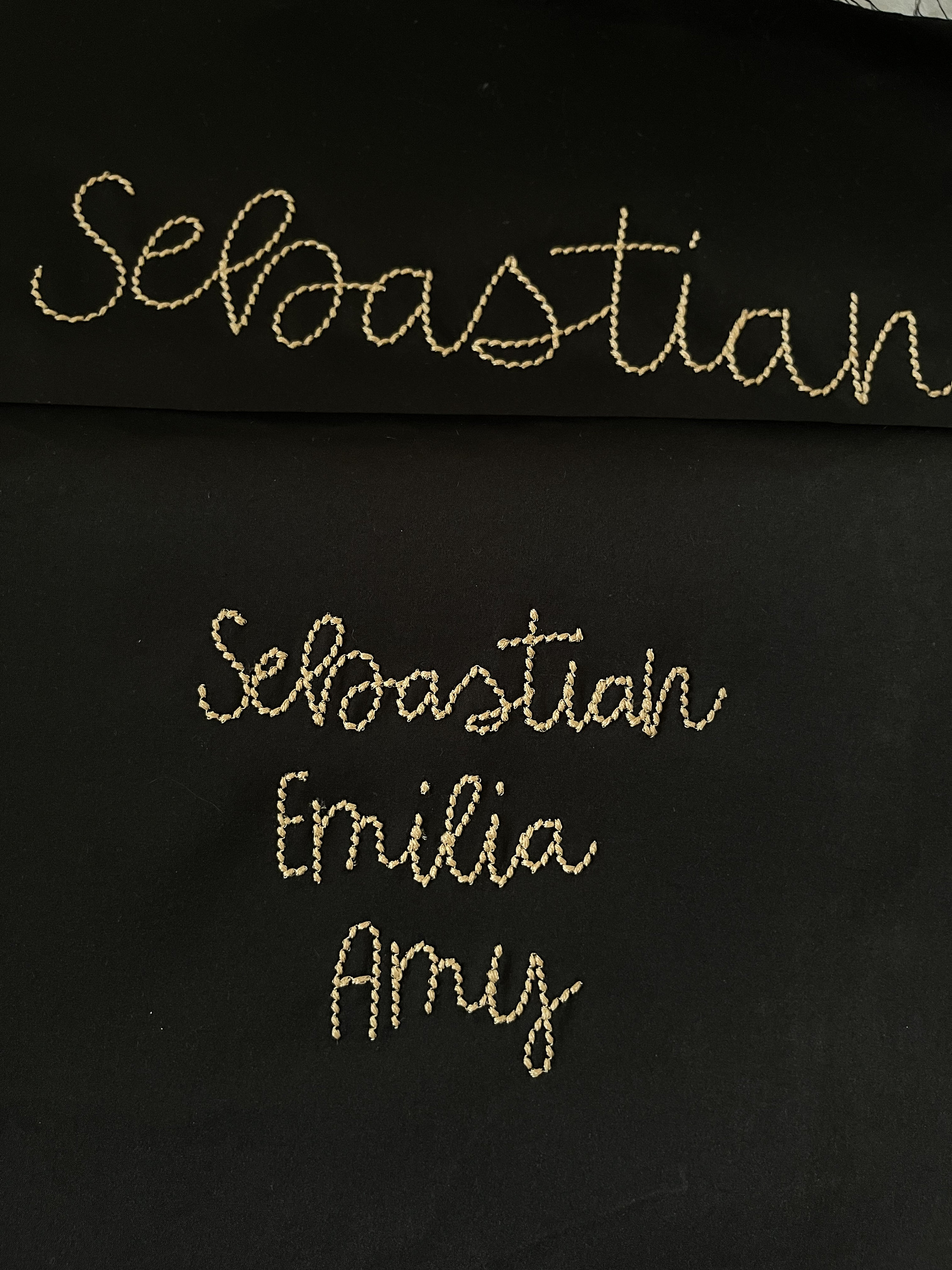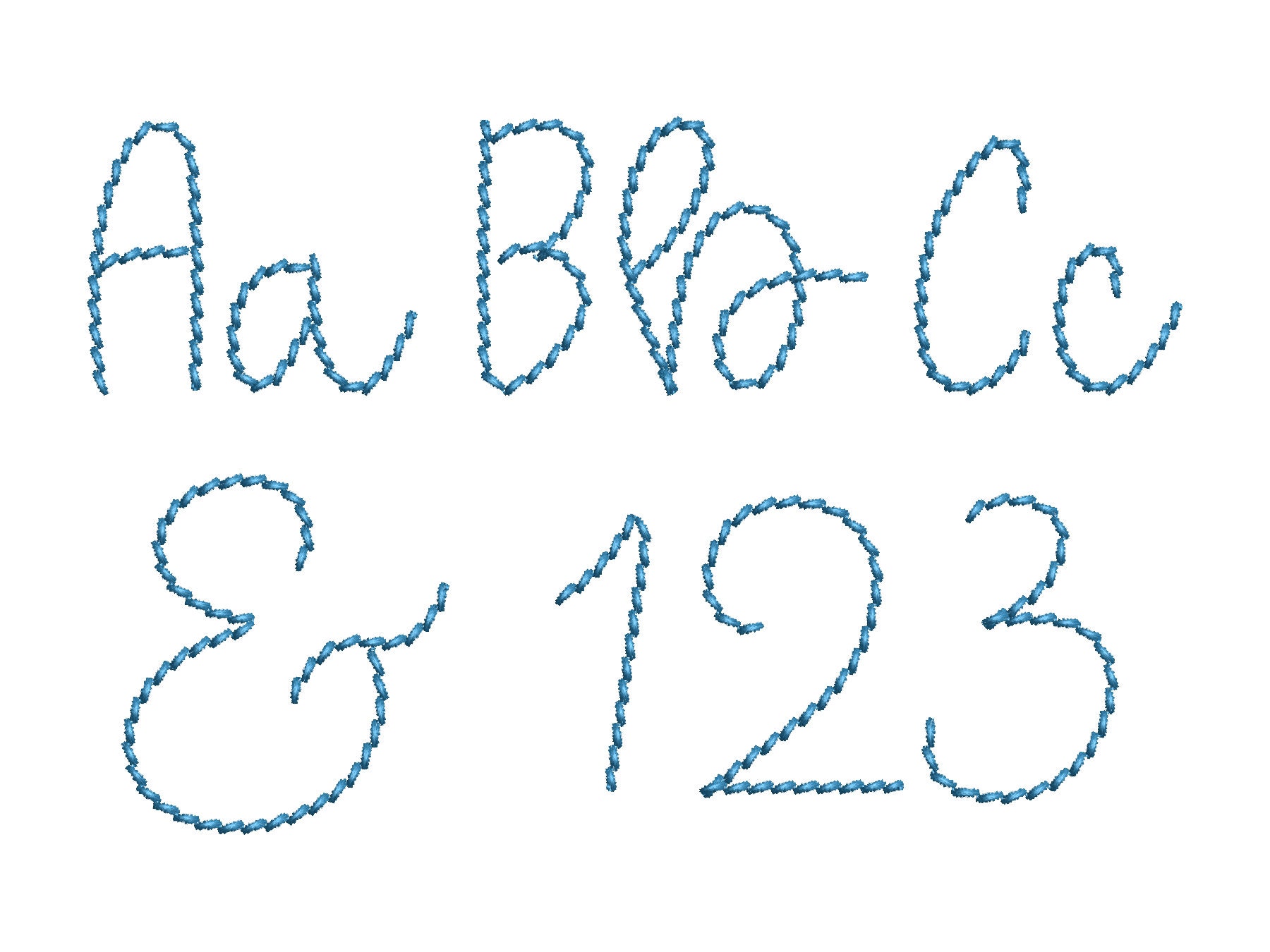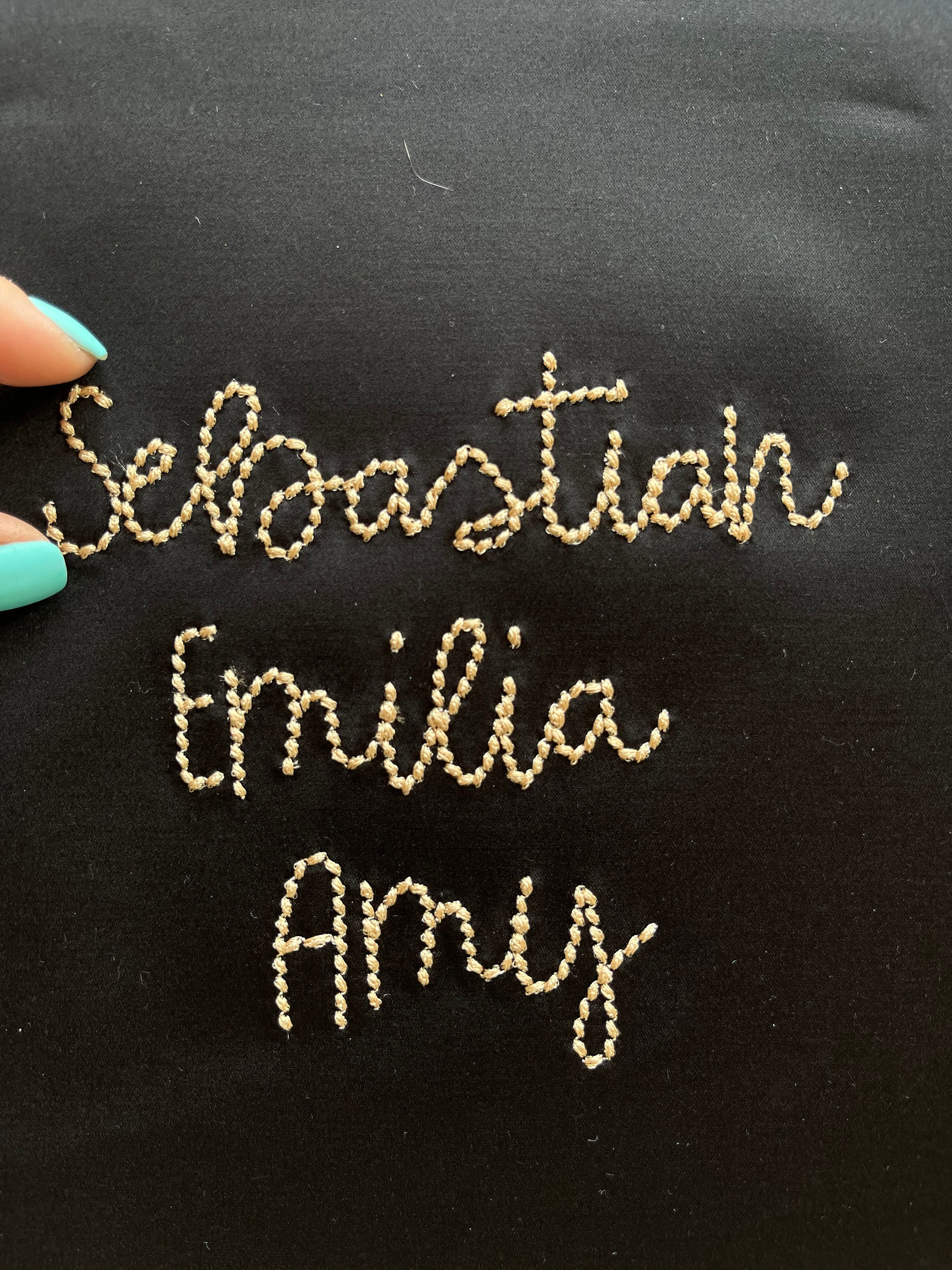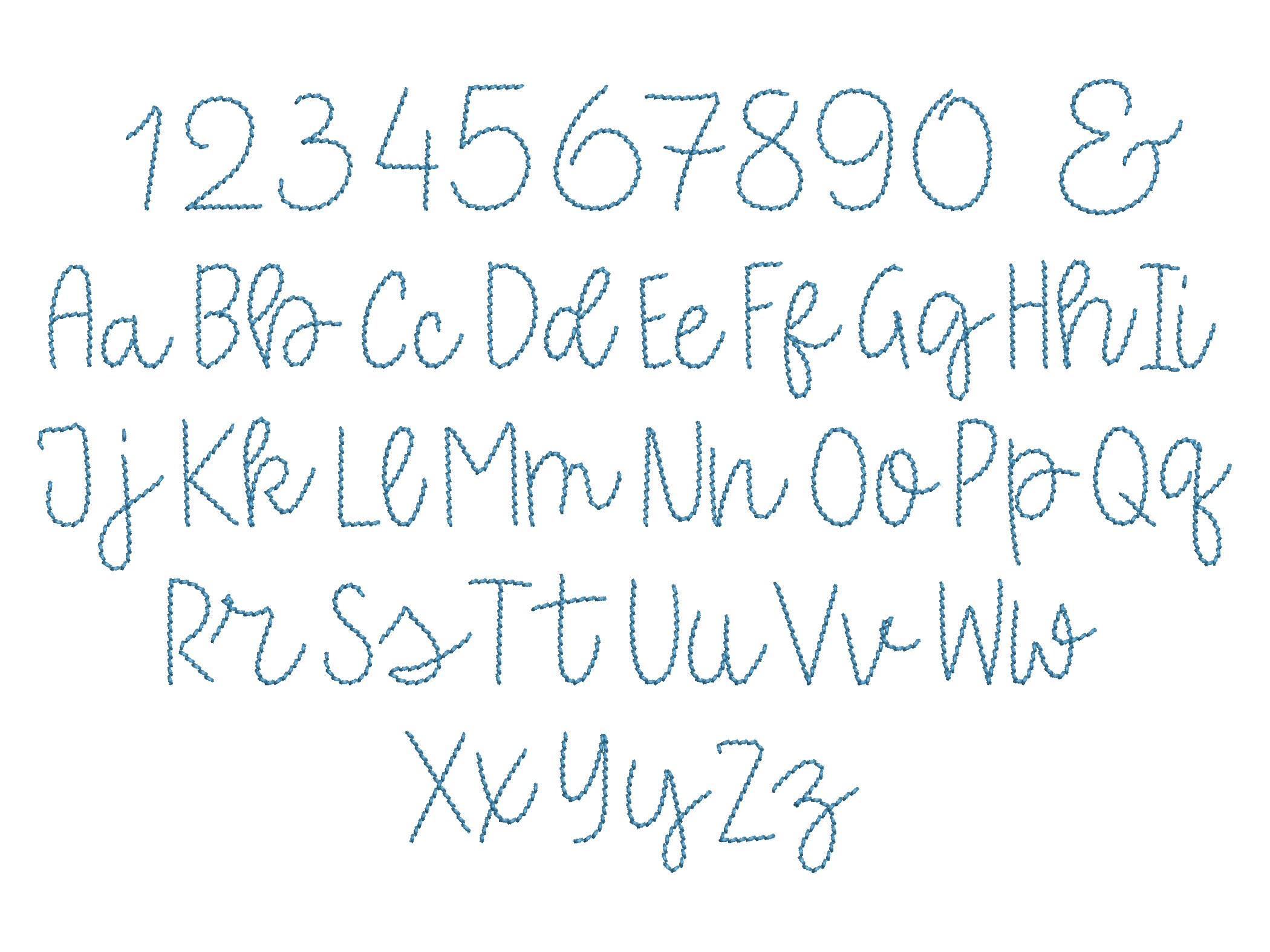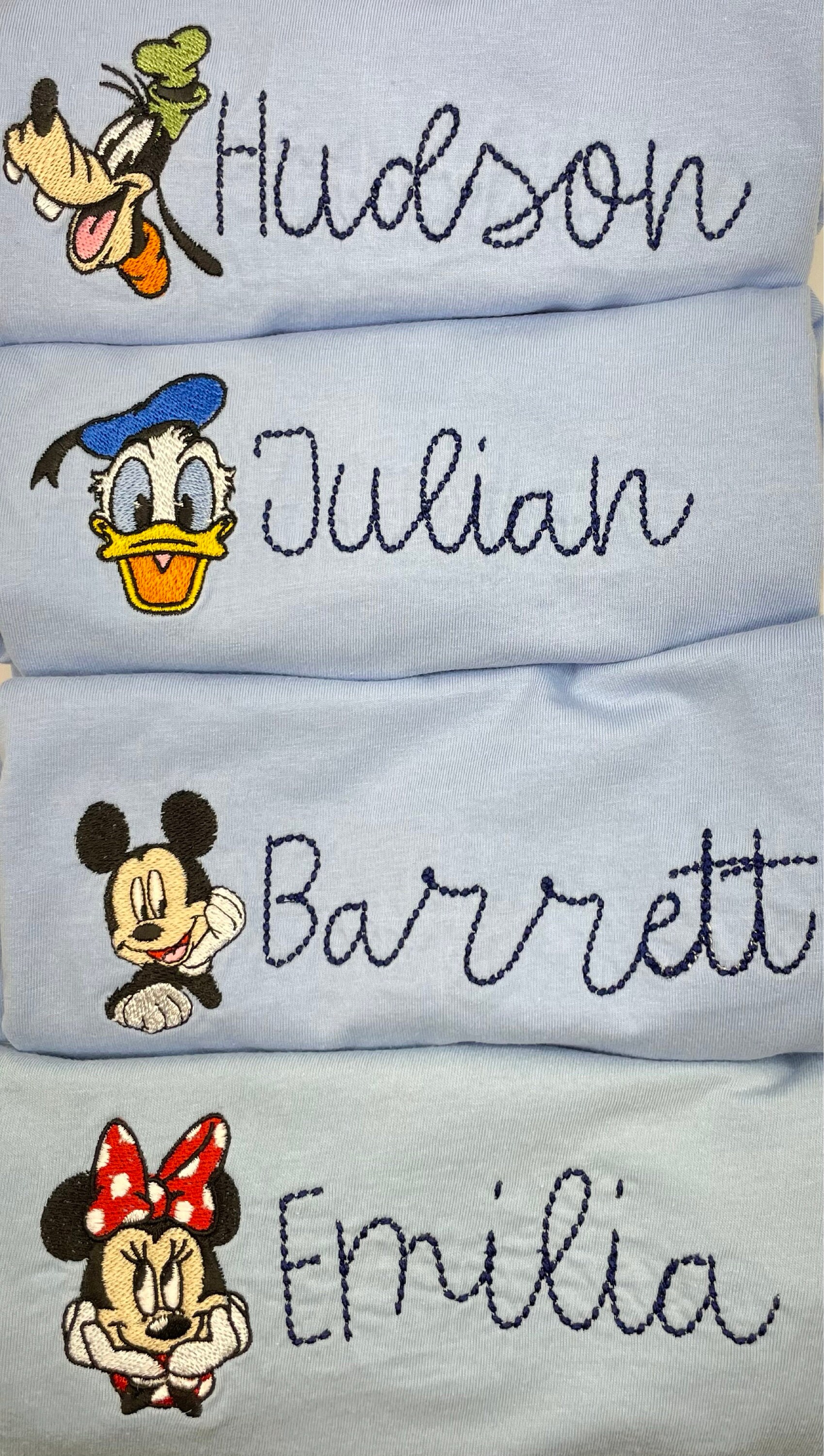
Hand stitch effect FONT step stitch script alphabet letters and numbers machine embroidery designs multiple sizes for kids name or saying BX included
Entire alphabet A-Z uppercase and lowercase letters, numbers 0-9, and ampersand &